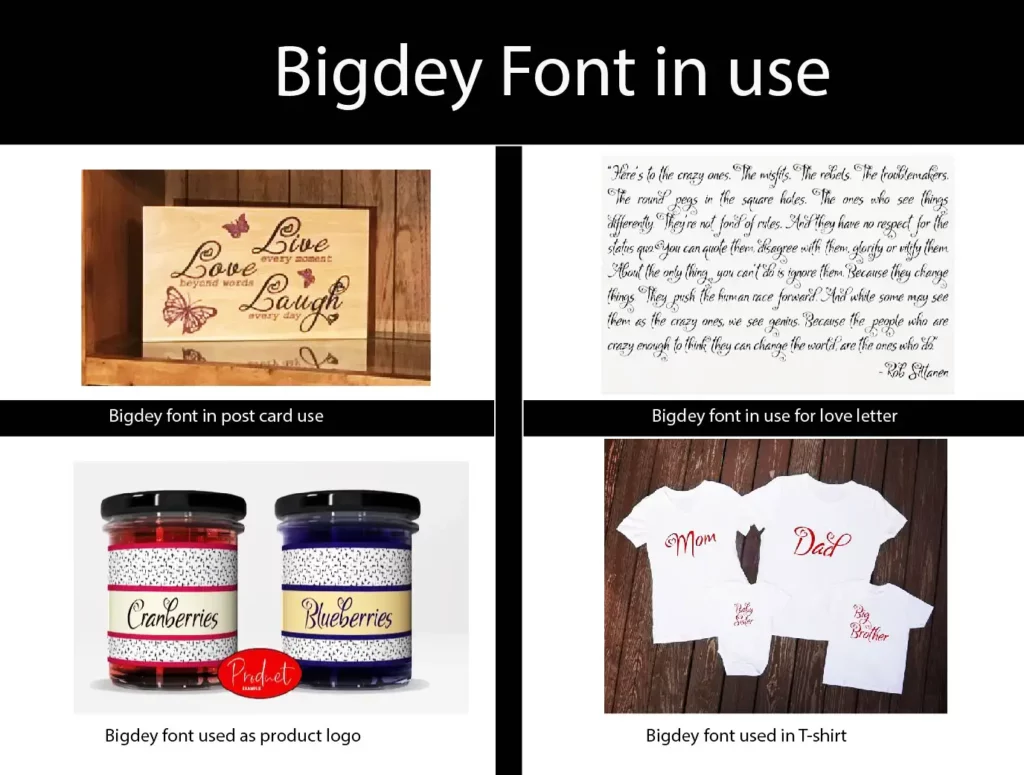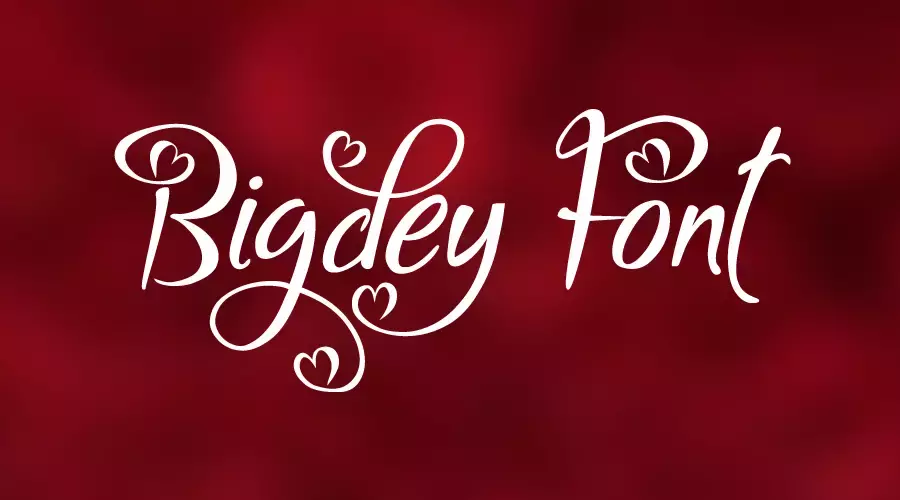
Bigdey Font
The Bigdey font, published by Digital Typeface Studio, is a stylish and whimsical calligraphic font appropriate for Valentine’s Day-themed designs. Designed by Eva Barabasne Olasz, this font was created to capture the essence of love and celebration in honor of the holiday. With its handwritten brush feel and special characters and symbols, it offers a one-of-a-kind look that sets it apart from other font options.
Bigdey Font Usage